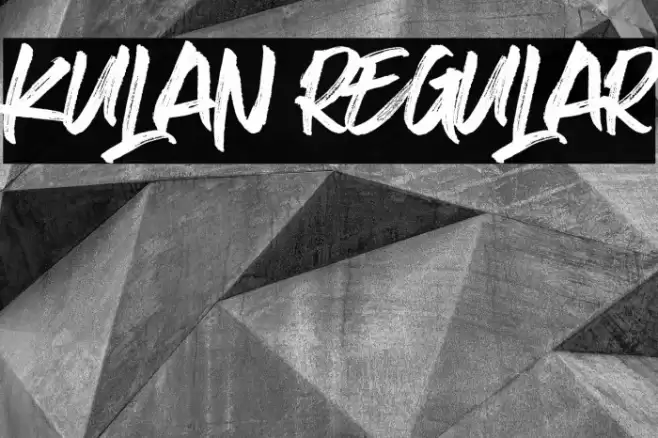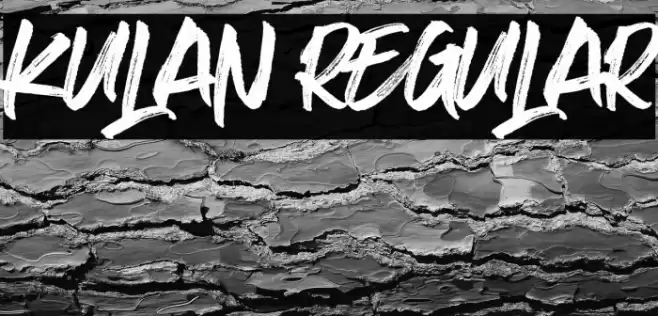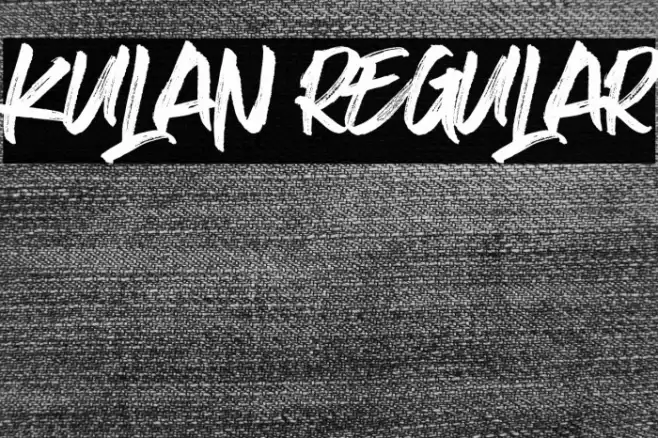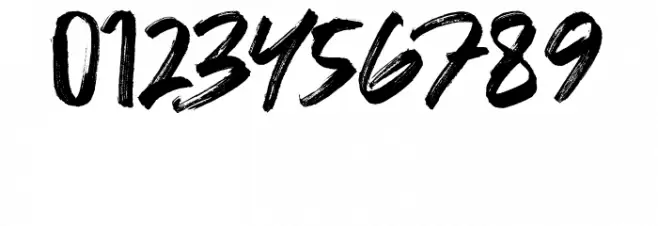
Kulan Regular Font
Kulan Regular Description
This font exudes a bold, energetic style with its brush-like strokes and dynamic movement. Each character is crafted with a sense of fluidity and spontaneity, reminiscent of hand-painted lettering. The uppercase and lowercase letters maintain a consistent rhythm, while the numbers and special characters complement the overall aesthetic. The texture of the strokes adds depth and a tactile quality, making it ideal for projects that require a personal, artistic touch.
A bold, brush-style font with dynamic, hand-painted strokes from Regular fonts.
- Proposed Projects: Ideal for branding, posters, album covers, and any project seeking a bold, artistic flair.